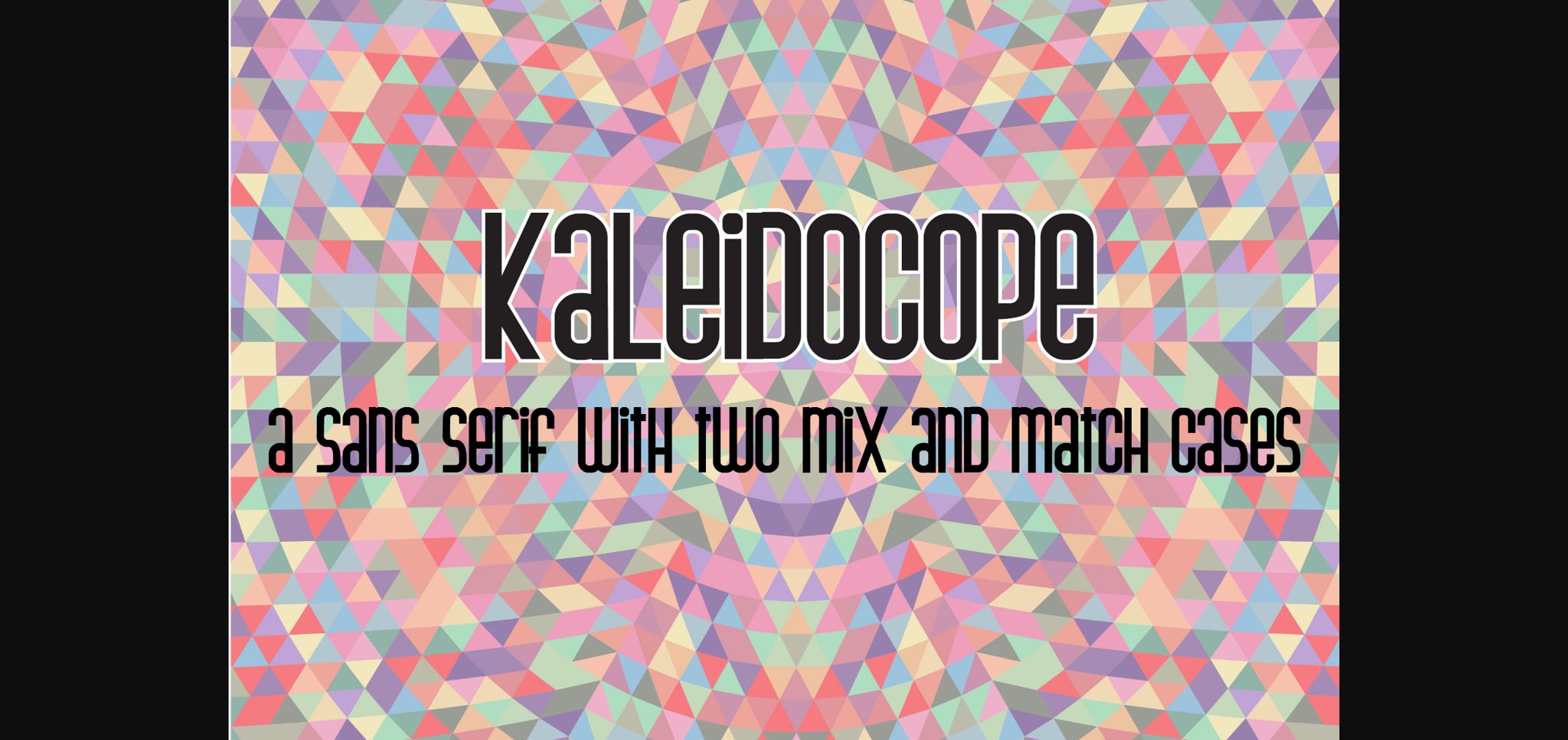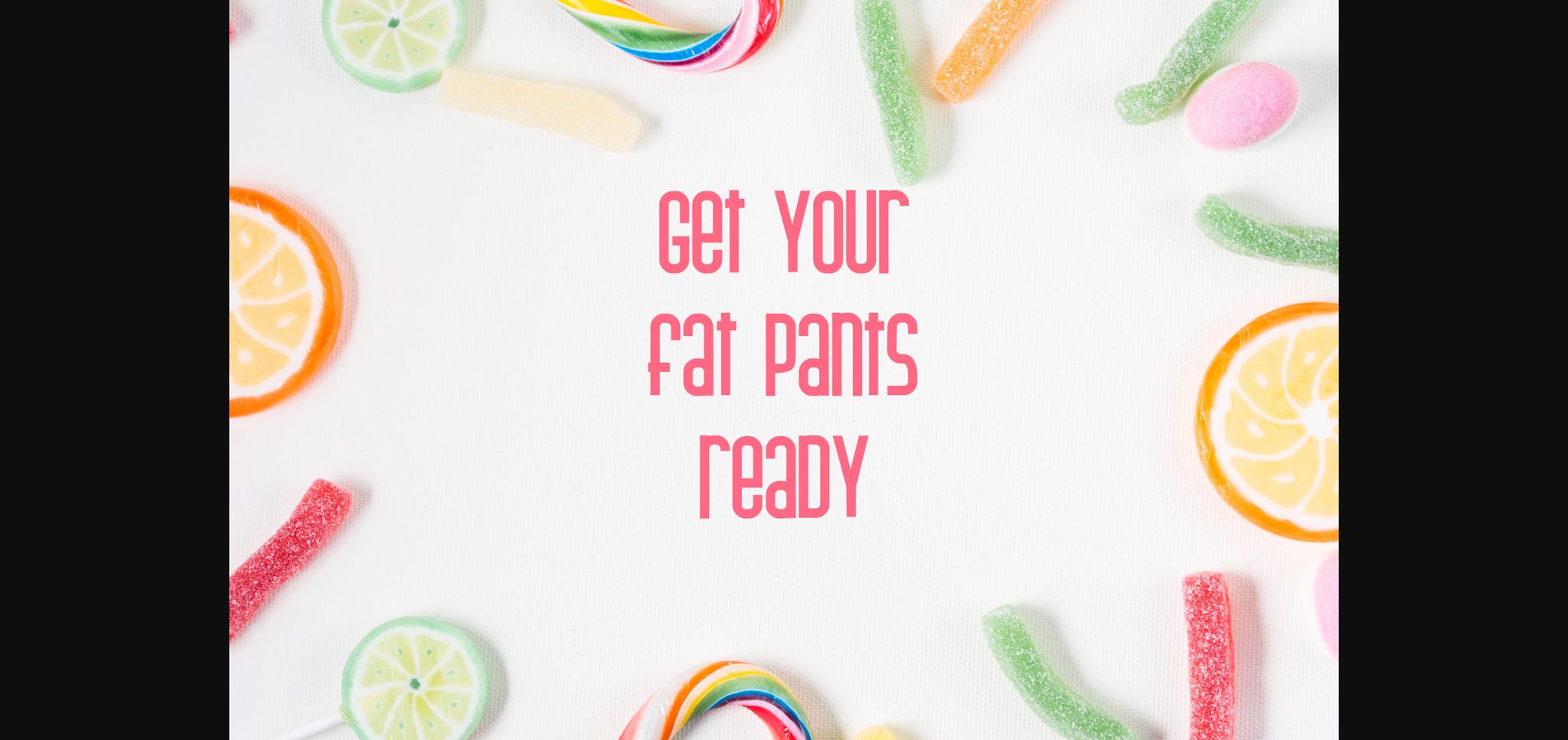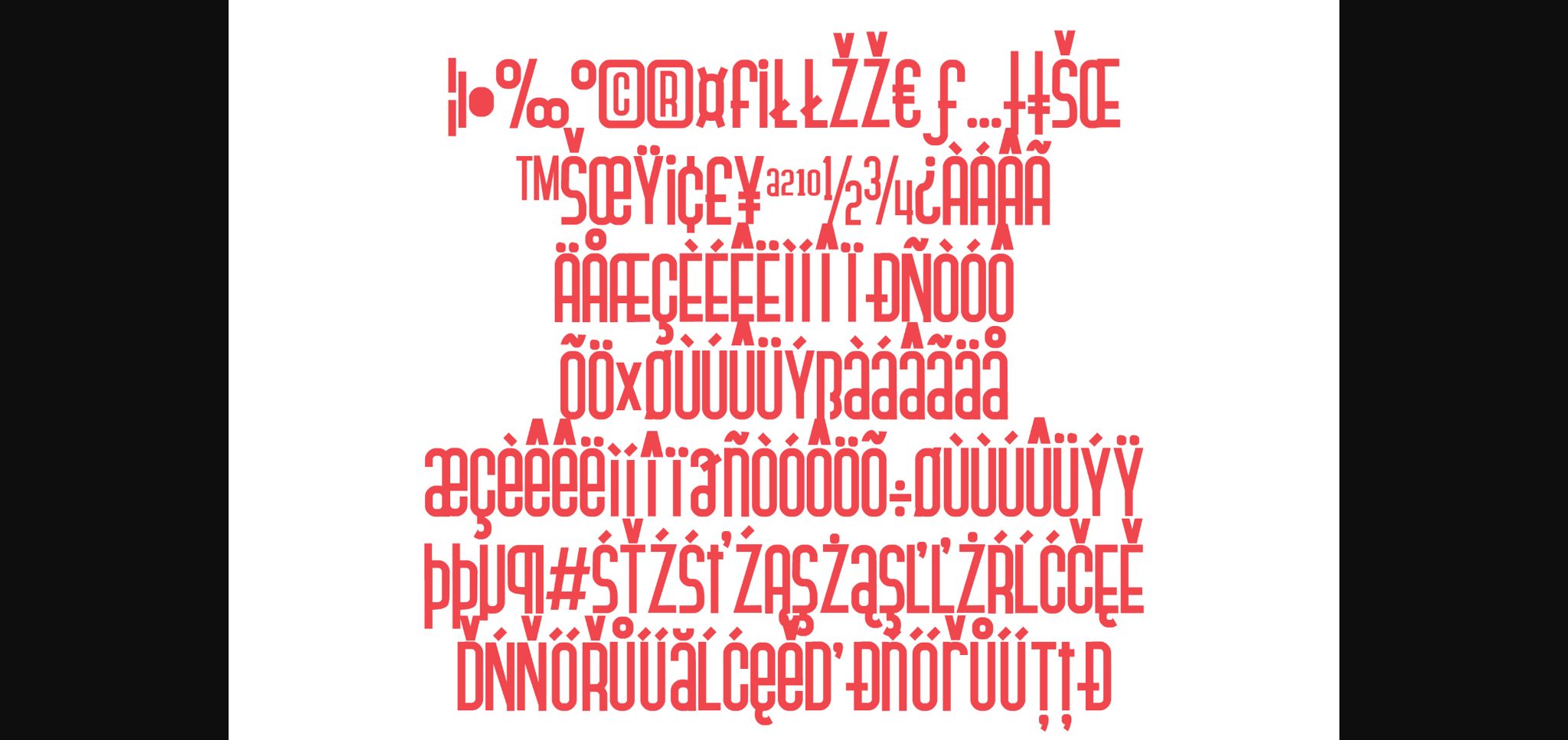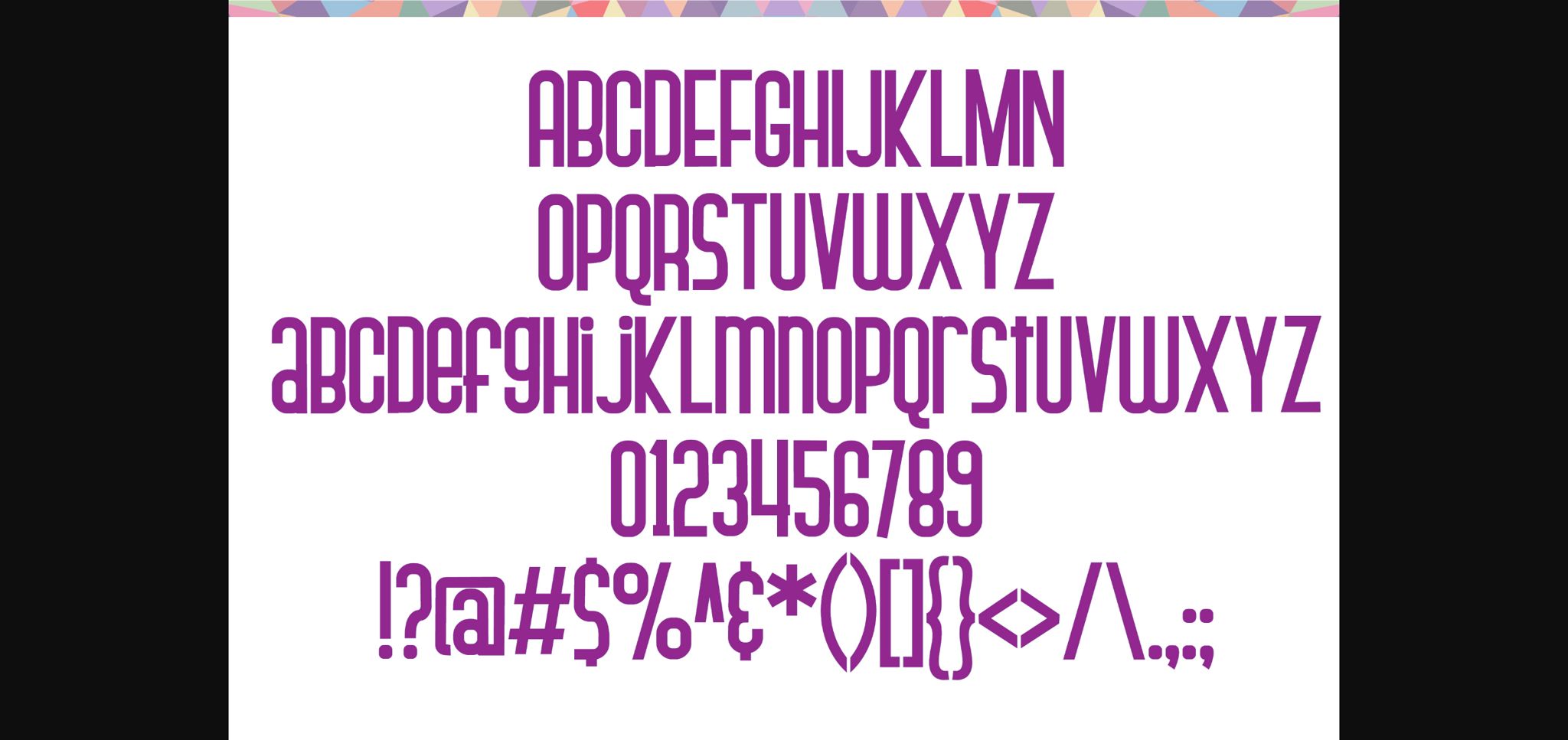
About Kaleidocope Font
Kaleidocope is a simple yet elegant sans serif font. It can easily be matched to an incredibly large set of projects, so add it to your creative ideas and notice how it makes them stand out!